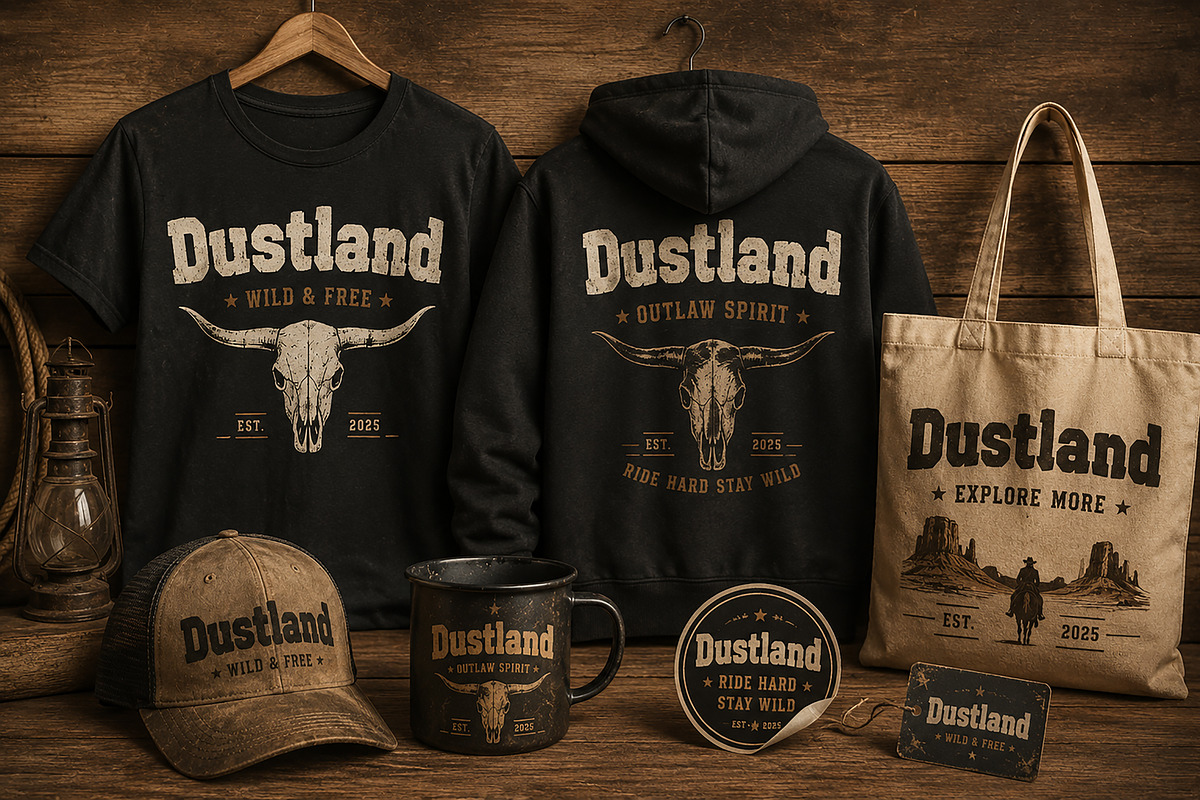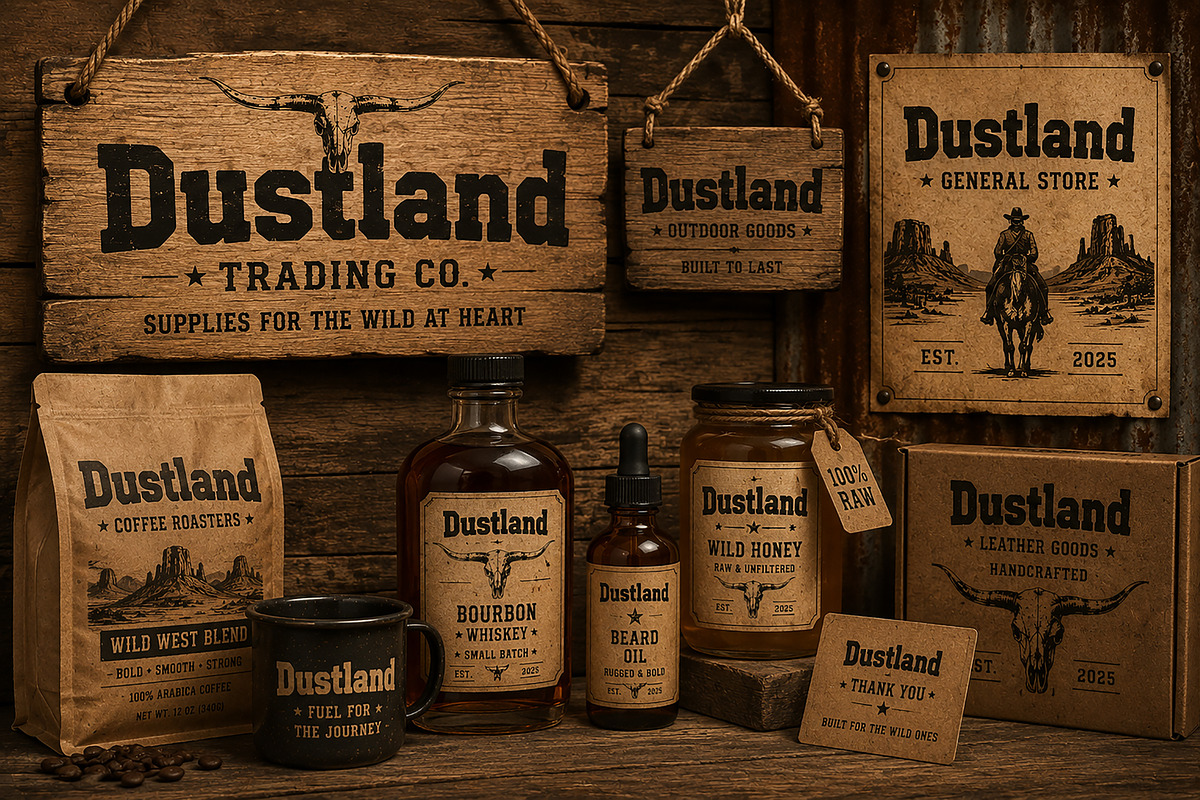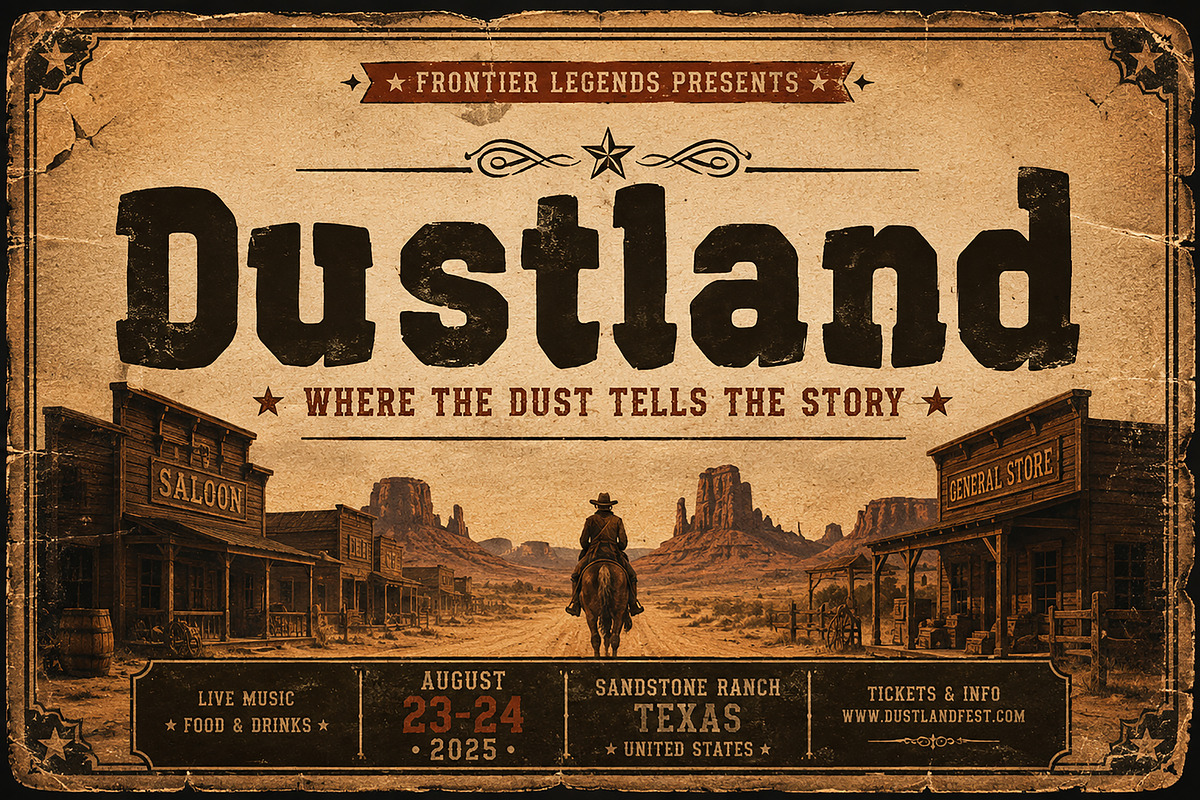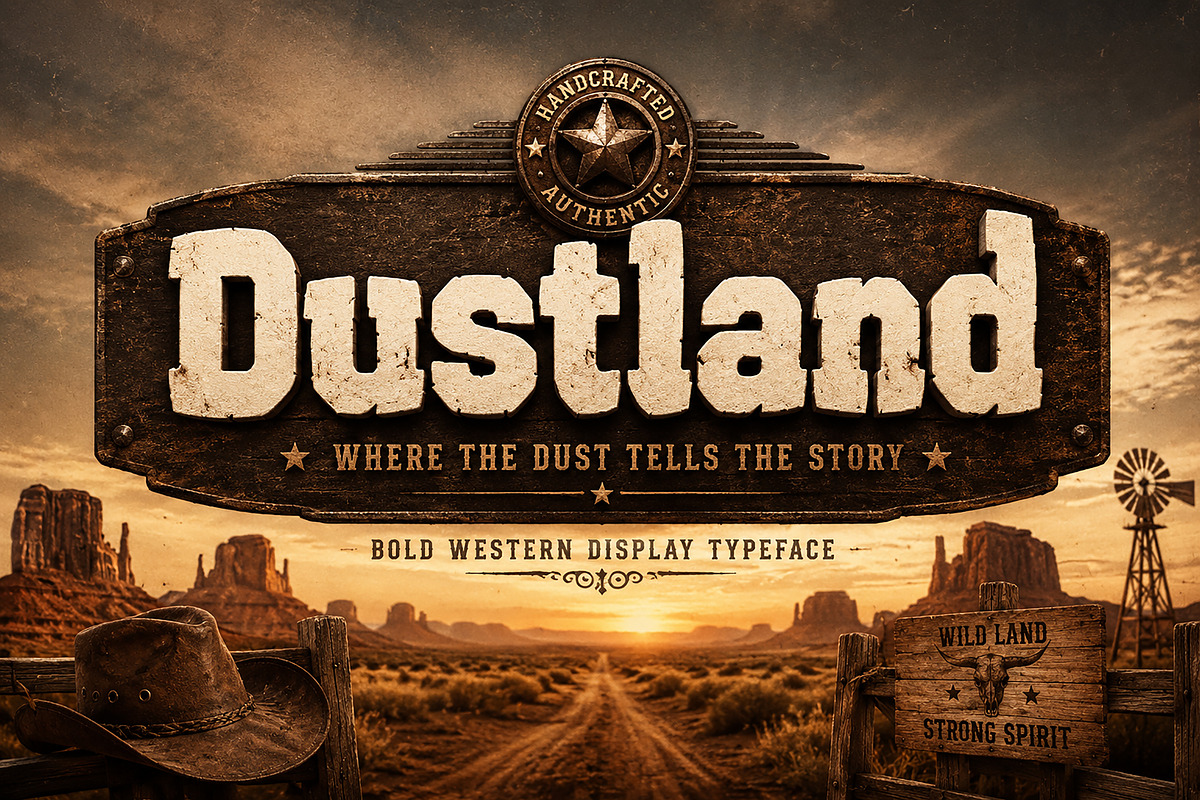
Dustland - Dustland is a bold
Dustland is a bold, rugged Western display font crafted to bring an authentic vintage character to your creative projects. With its heavy, distinctive letterforms and raw frontier-inspired personality, Dustland is perfect for designs that need a strong, adventurous, and nostalgic visual presence.
Designed for impactful typography, Dustland works beautifully for Western branding, logos, posters, apparel, merchandise, packaging, labels, signage, badges, outdoor brands, and vintage-inspired advertising.
Its strong display style makes it especially effective for headlines, brand names, product packaging, T-shirt graphics, event posters, and other designs where bold typography needs to make an immediate impression.
Western & Cowboy Branding
Logo & Brand Identity
Vintage Posters
T-Shirt & Apparel Designs
Coffee & Outdoor Brands
Rustic Signage
Labels & Badges
Event & Festival Posters
Adventure & Outdoor Projects
Retro Advertising
Print & Digital Designs
Style: Bold Western / Vintage Display
Bring a rugged Western spirit and vintage frontier character to your next design with Dustland.